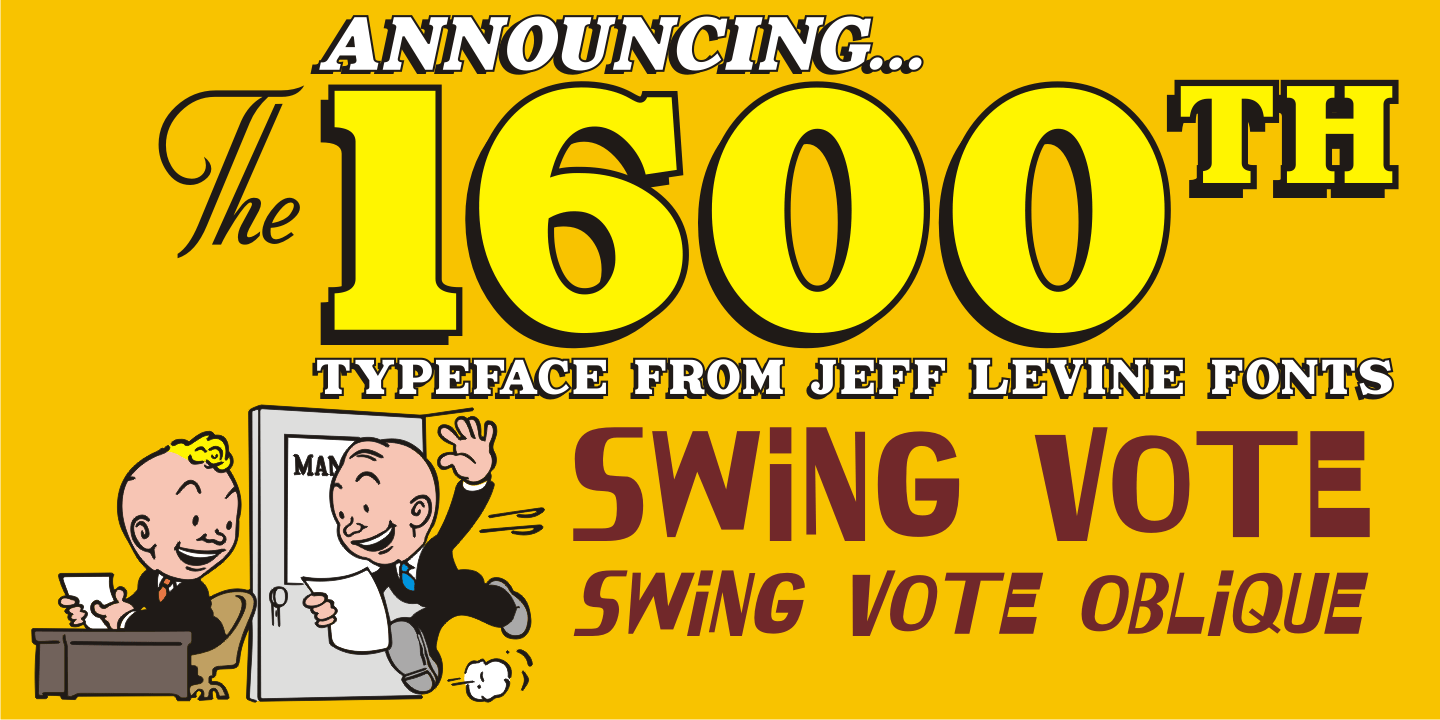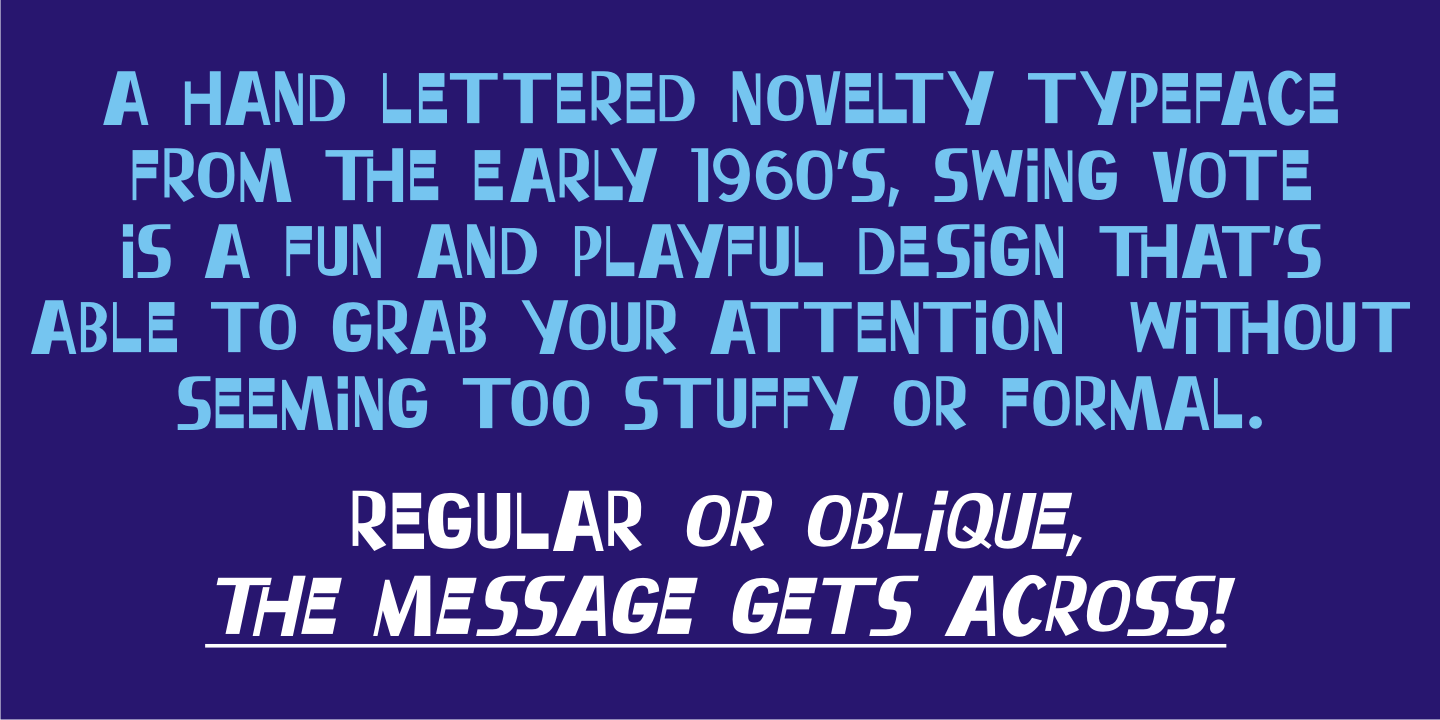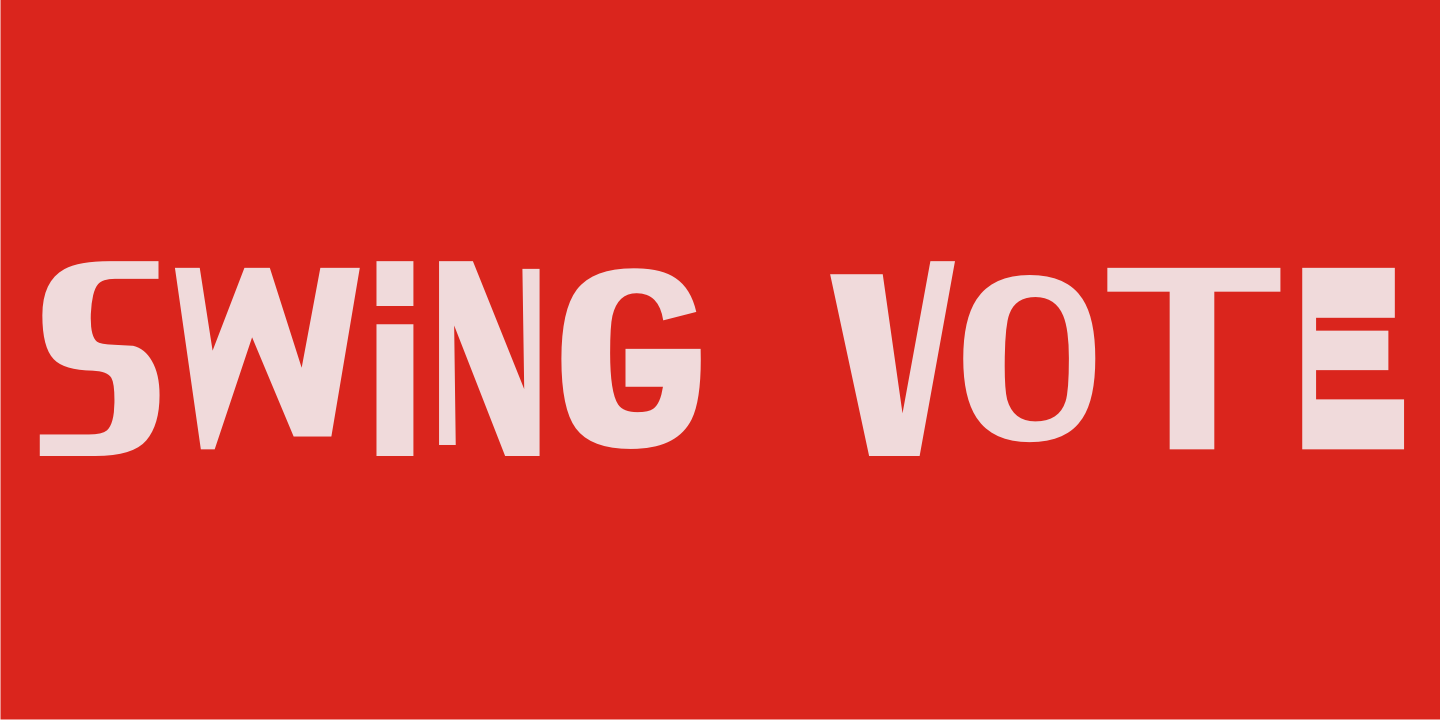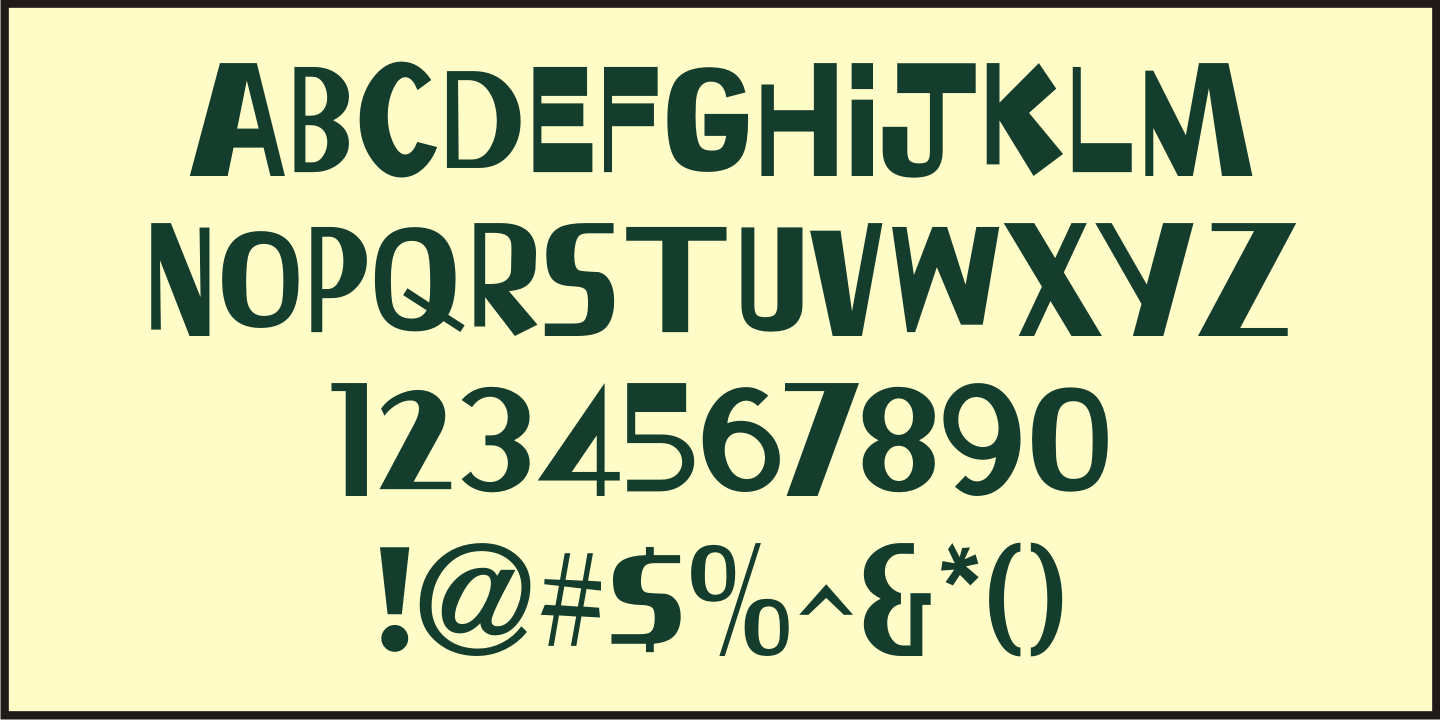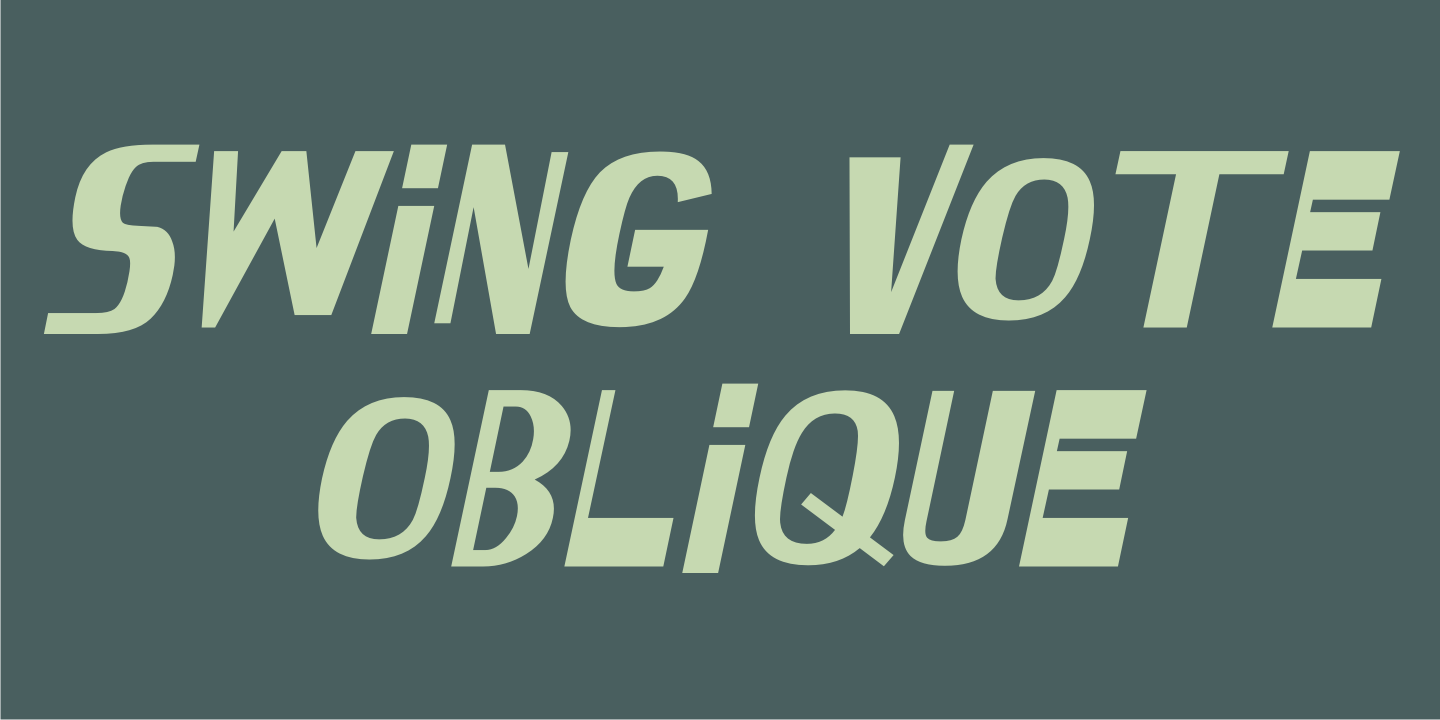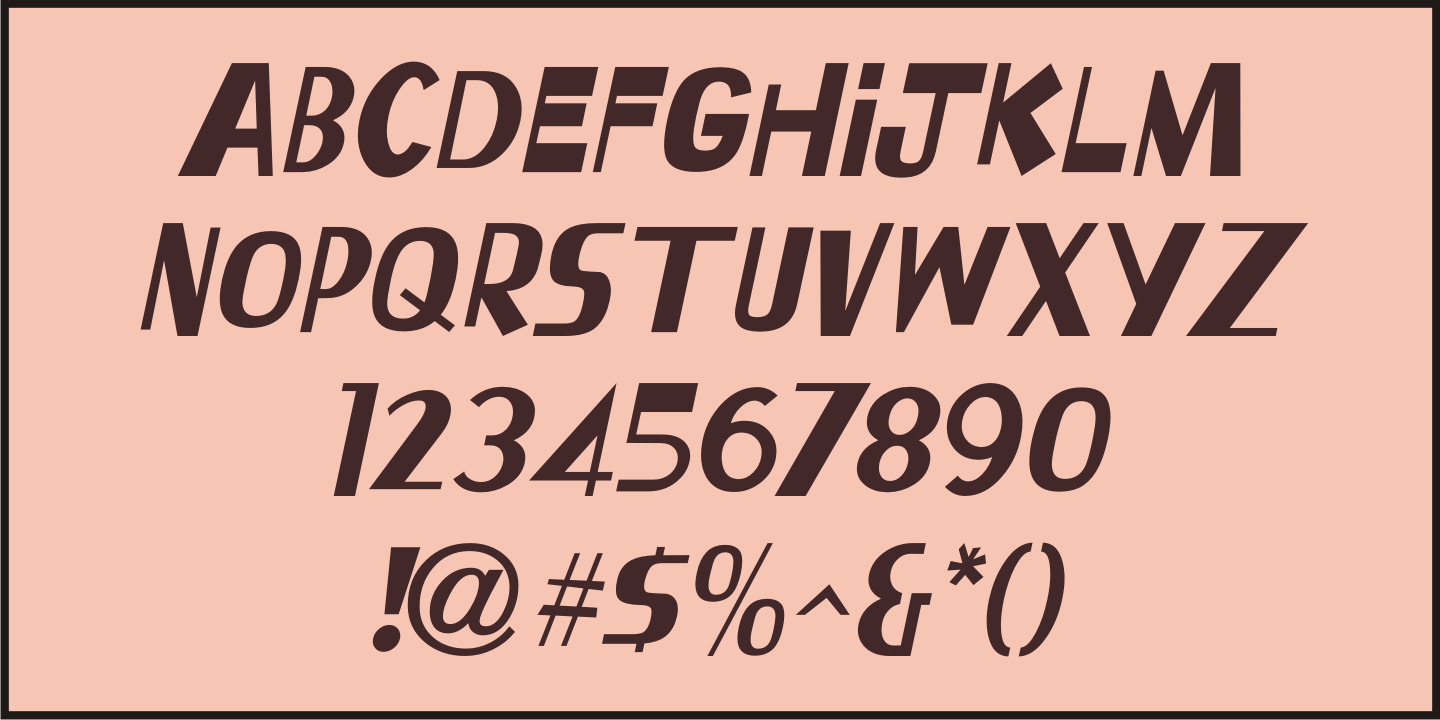
Swing Vote
A 1964 piece of sheet music entitled 'Old Soldiers Never Die (They Just Fade Away)' was based on the farewell speech General Douglas MacArthur gave to Congress on April 19, 1951.
This particular edition of the song sheet had part of his speech (as well as its title) hand lettered in a free-form sans serif reminiscent of the lettering done by such noted lettering artists as Paul Coker and Saul Bass.
The casual and playful style of this type design became the inspiration for Swing Vote JNL, which is available in both regular and oblique versions.
Swing Vote JNL Oblique
Swing Vote JNL Regular